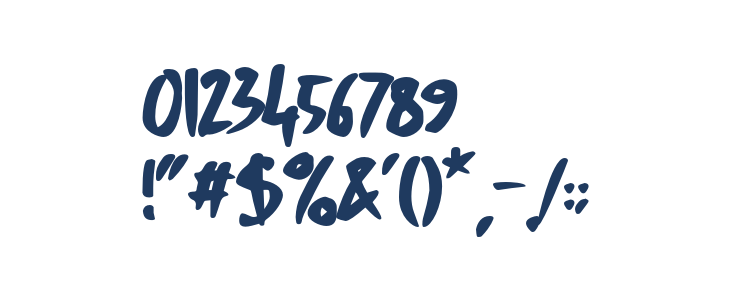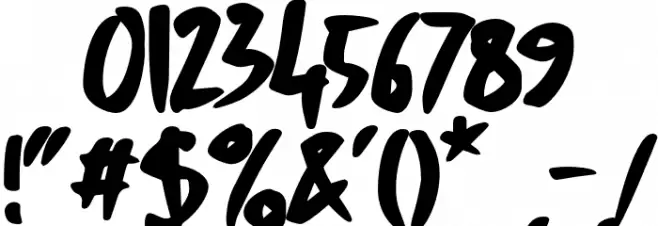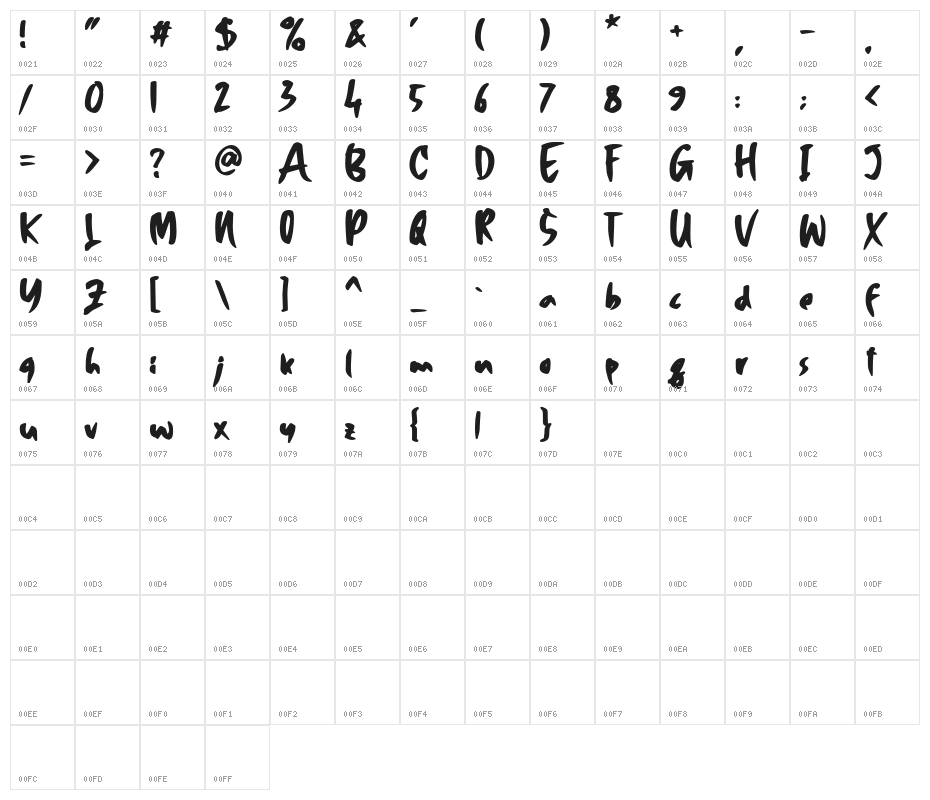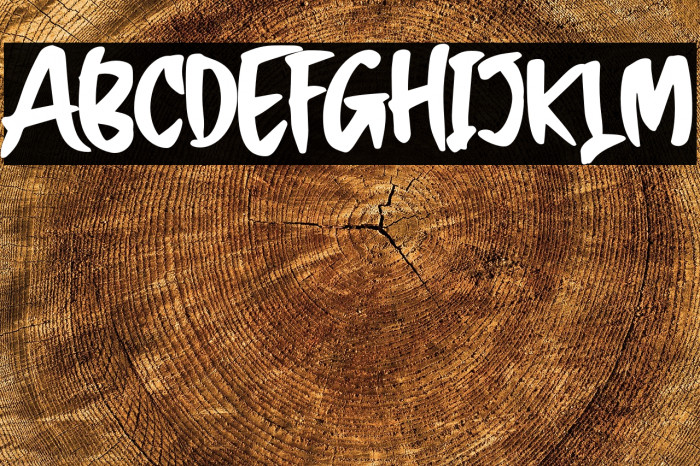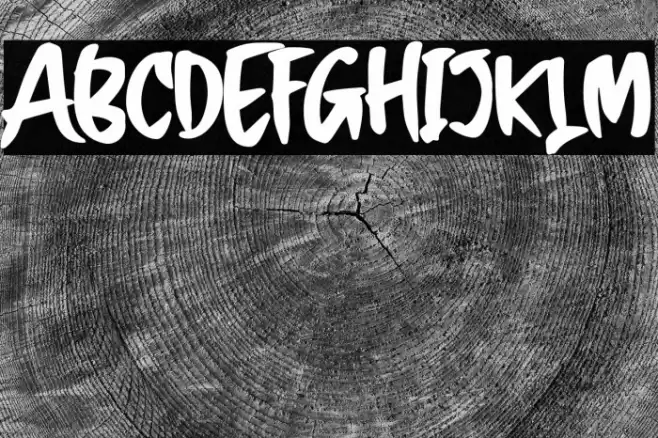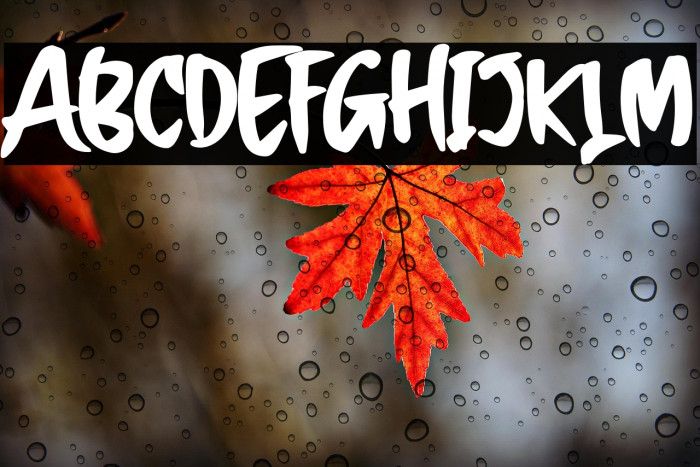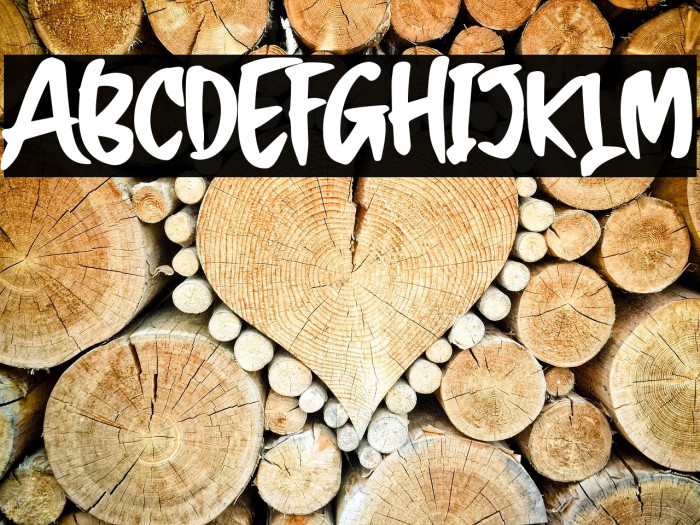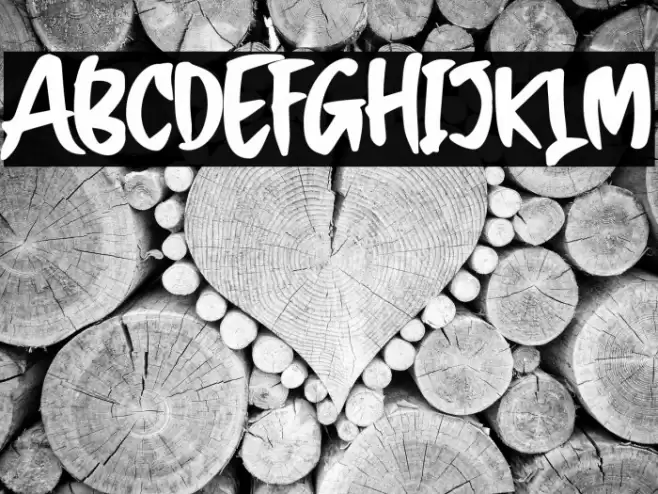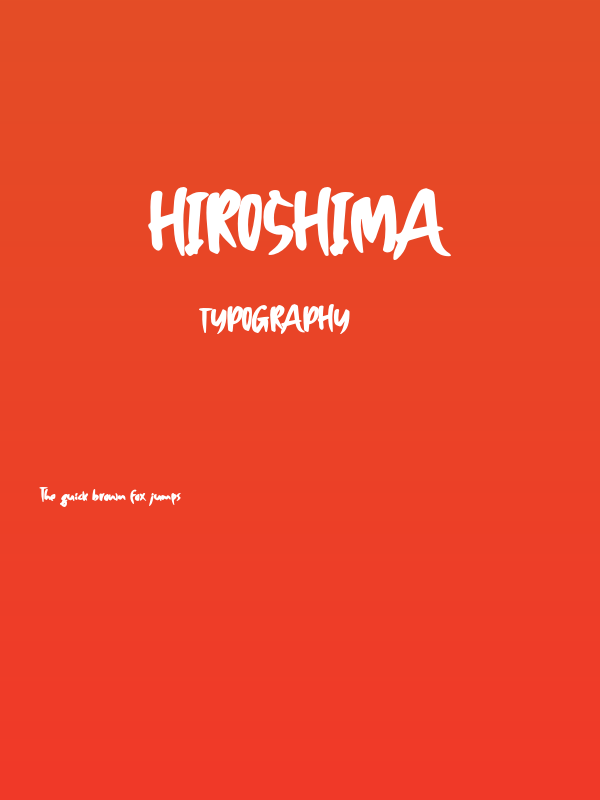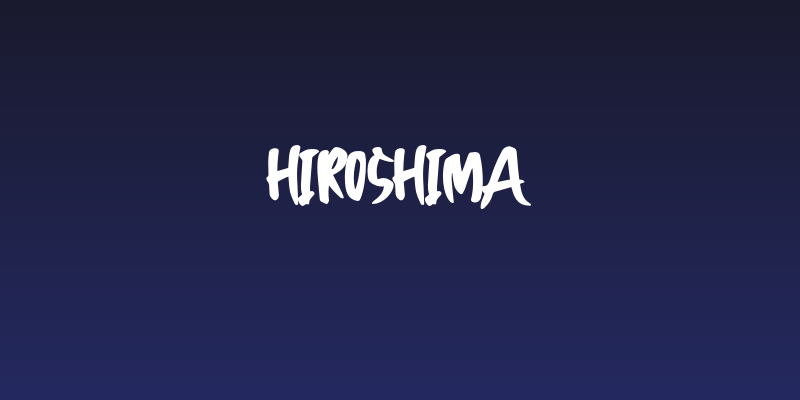
Hiroshima Font
Hiroshima Description
This font features a bold and expressive style, characterized by its thick, brush-like strokes that give it a dynamic and energetic appearance. The letters are slightly irregular, adding a sense of movement and spontaneity. The uppercase and lowercase letters maintain a consistent style, with rounded edges and a playful, informal feel. The numbers and special characters follow the same design principles, ensuring a cohesive look across all glyphs. This font is ideal for projects that require a personal touch or a creative flair, making it suitable for artistic and modern applications.
| Proposed Projects | Ideal for posters, branding, artistic projects, and modern designs. |